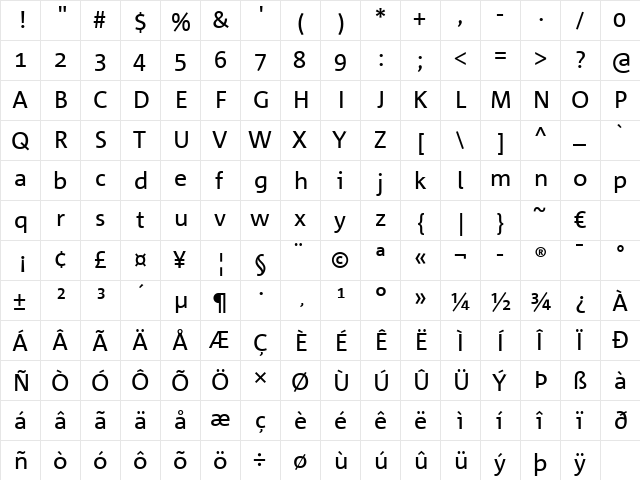
CorpidOffice Regular
| Designer | Luc[as] de Groot, FontFabrik |
Design Context for CorpidOffice Typeface
CorpidOffice takes a measured approach to typography — its balanced proportions and neutral character make it a reliable workhorse for both digital and print work.